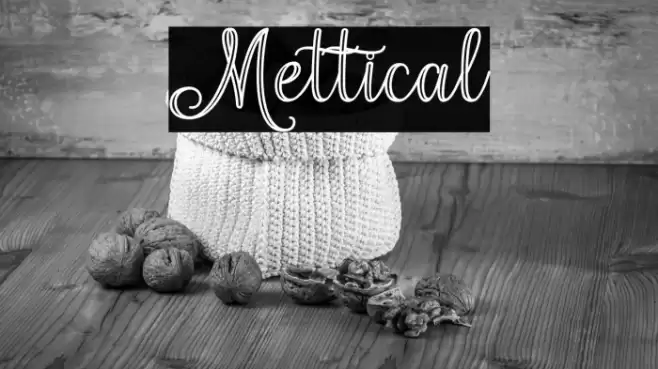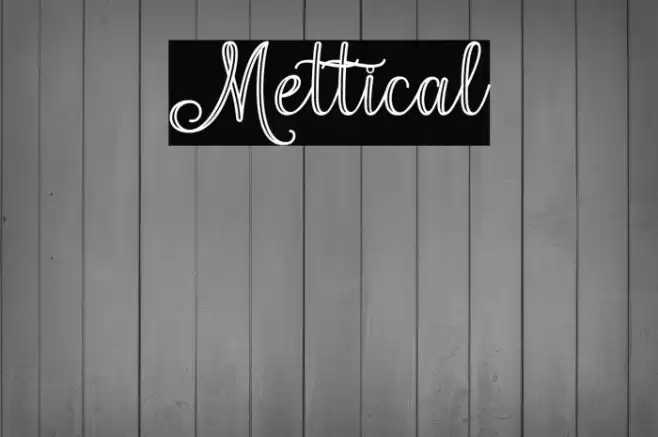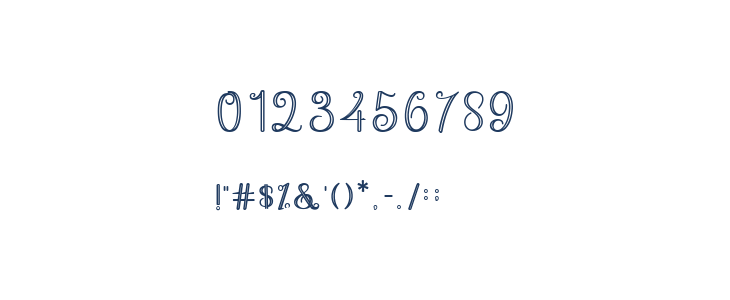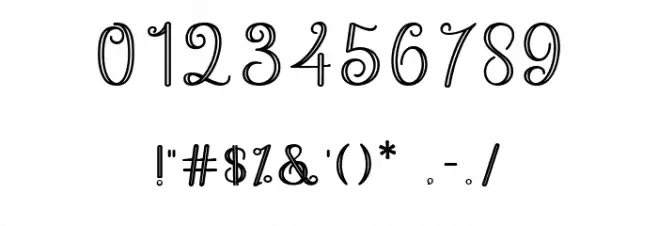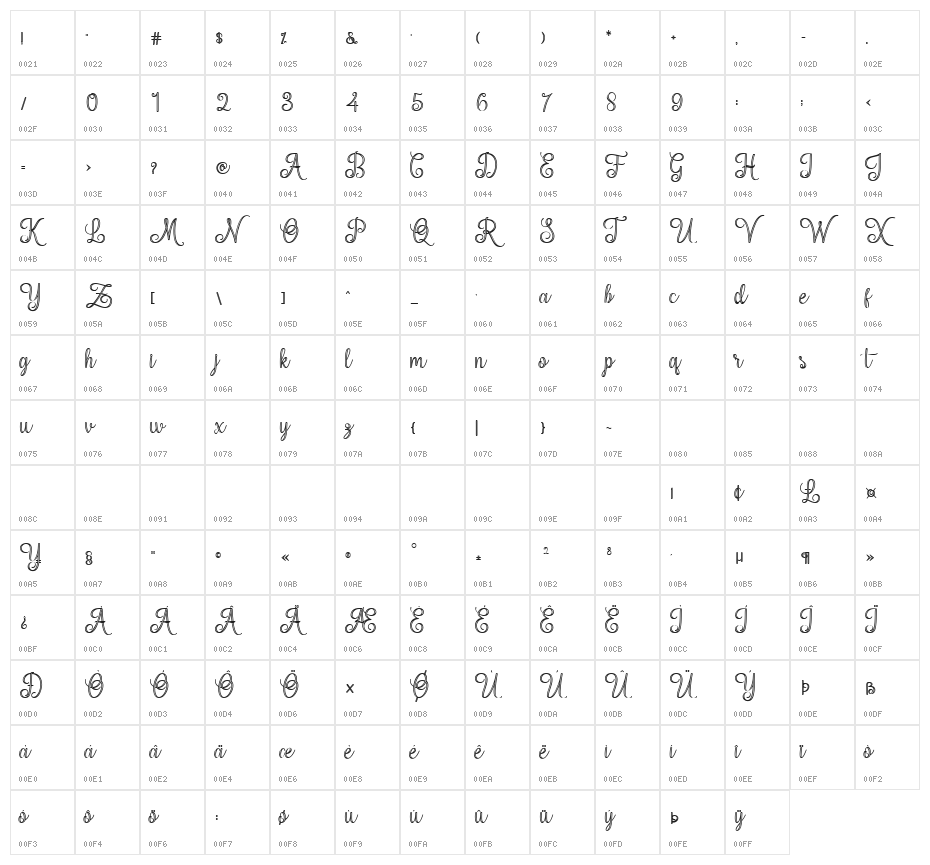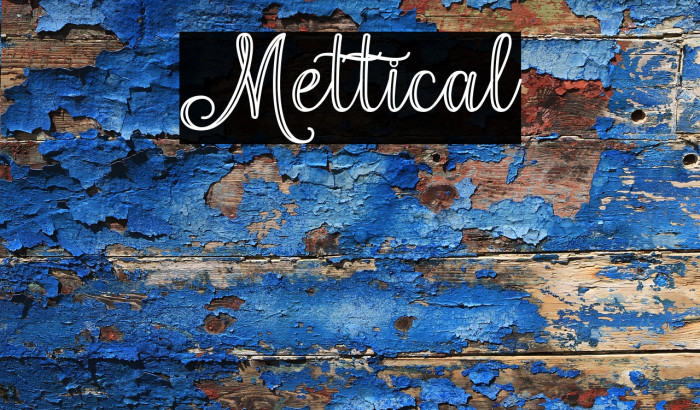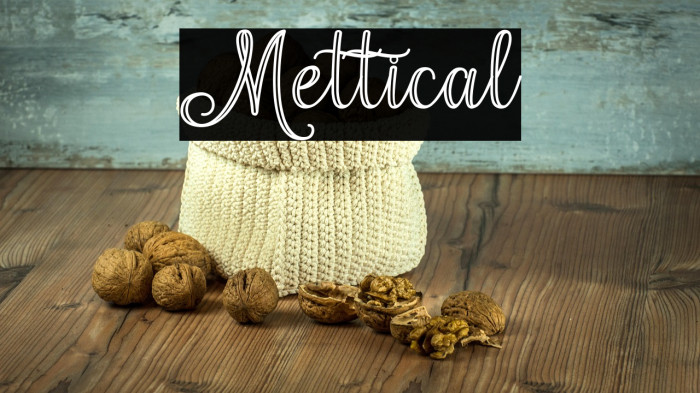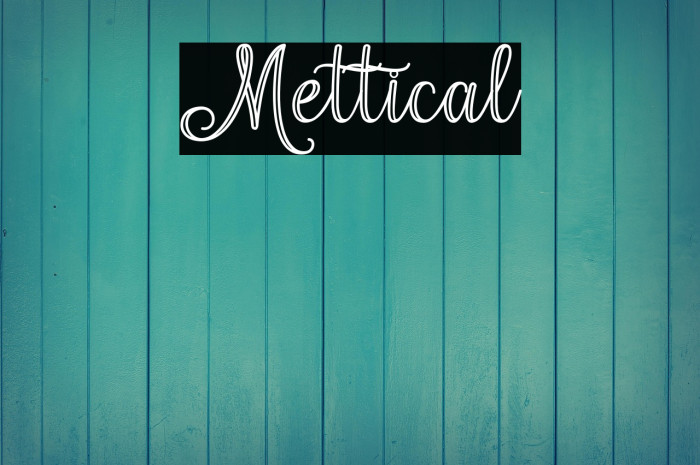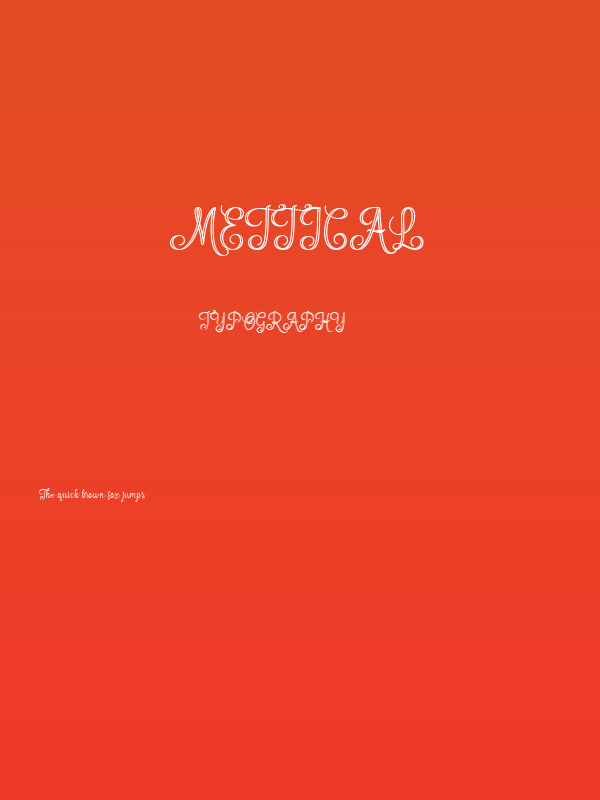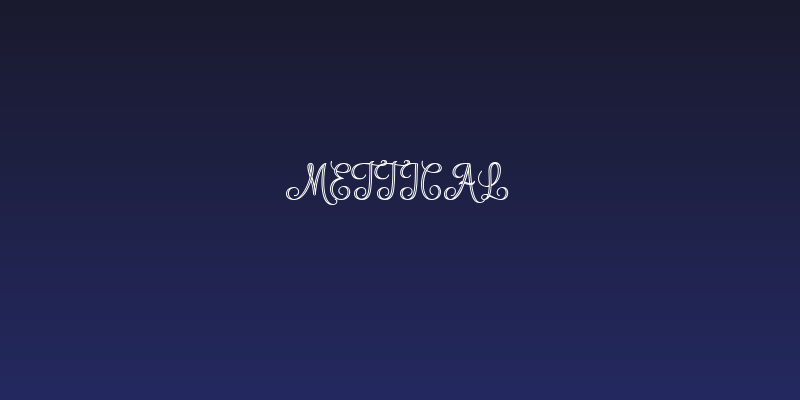
Mettical Font
Mettical Description
This font features an elegant and decorative script style, characterized by its flowing and interconnected letterforms. The uppercase letters are ornate, with intricate loops and swirls that give a sense of sophistication and flair. The lowercase letters maintain a more subdued yet still stylish appearance, with smooth curves and a consistent stroke width. The numerals and special characters are designed to match the overall aesthetic, ensuring a cohesive look across all text. This font's unique style makes it suitable for projects that require a touch of elegance and creativity.
An elegant, decorative script font with flowing, interconnected letterforms from Regular fonts.
- Font: Mettical
- Proposed Projects: Ideal for wedding invitations, greeting cards, branding, and decorative headings.
- Use Case: Headlines, Logos, Invitations